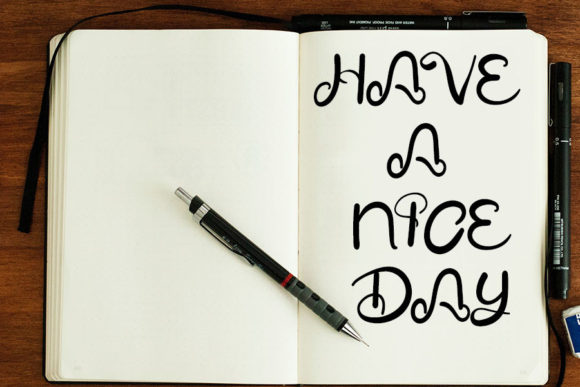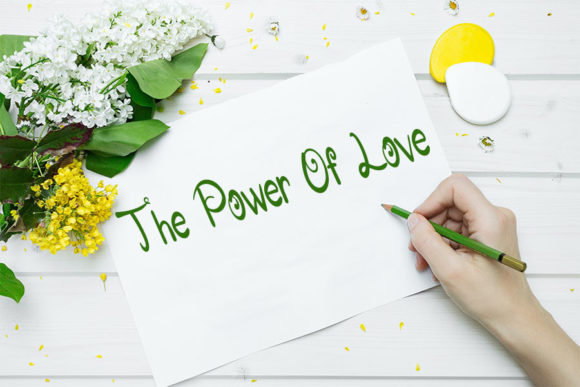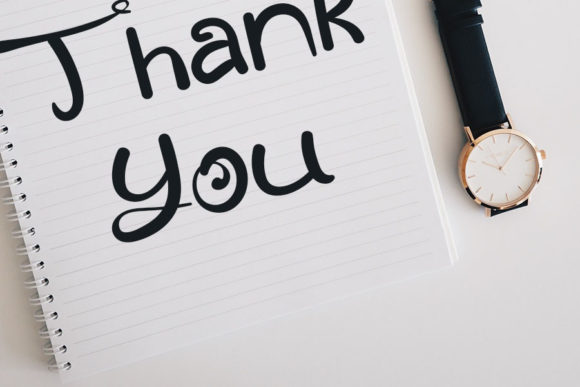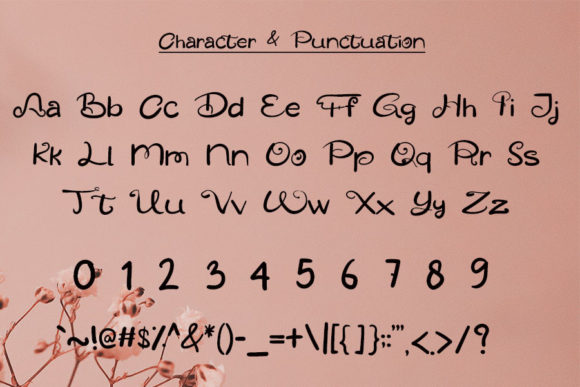
Introducing Good Allisya: The Ultimate Chic Script Font for Your Design Projects
Are you tired of using the same old fonts for your design projects? Look no further! Good Allisya is a stunning script font that is sure to elevate your designs to the next level. With its chic, whimsical, and refined aesthetic, Good Allisya emanates sophistication and elegance, making it perfect for a wide range of projects.
What Makes Good Allisya Special?
Good Allisya is not just another script font. Its stylish alternates and ligatures make it a standout in the world of typography. The font features a range of beautiful swashes and connections that add a touch of elegance to any text. Whether you’re designing a logo, creating a brand identity, or crafting a beautiful wedding invitation, Good Allisya is the perfect match.
Key Features of Good Allisya
- Chic and Whimsical Design: Good Allisya boasts a unique and stylish design that is sure to capture the attention of your audience.
- Refined and Elegant: The font’s refined aesthetic makes it perfect for high-end designs, such as luxury branding, fashion magazines, and wedding invitations.
- Stylish Alternates and Ligatures: Good Allisya features a range of stylish alternates and ligatures that add a touch of sophistication to any text.
- Highly Versatile: The font is perfect for a wide range of projects, including logos, branding, packaging, and more.
Why Choose Good Allisya?
With so many fonts available, why choose Good Allisya? Here are just a few reasons why designers and crafters love this font:
- Unique and Eye-Catching: Good Allisya is a one-of-a-kind font that is sure to make your designs stand out from the crowd.
- Elegant and Sophisticated: The font’s refined aesthetic makes it perfect for high-end designs that require a touch of luxury.
How to Use Good Allisya in Your Designs
Good Allisya is easy to use in a variety of design projects. Here are a few ideas to get you started:
- Logos and Branding: Use Good Allisya to create a unique and eye-catching logo that reflects your brand’s personality.
- Wedding Invitations: Add a touch of elegance to your wedding invitations with Good Allisya’s refined script.
- Fashion Magazines: Use Good Allisya to add a touch of luxury to your fashion magazine designs.
- Packaging: Good Allisya is perfect for packaging designs that require a touch of sophistication.
Tips and Tricks for Getting the Most Out of Good Allisya
Here are a few tips and tricks for getting the most out of Good Allisya:
- Experiment with Different Sizes: Good Allisya looks great in a variety of sizes, so don’t be afraid to experiment.
- Play with Ligatures: Good Allisya’s ligatures are a key feature of the font. Experiment with different combinations to add visual interest to your text.
- Use Alternates: Good Allisya’s alternates offer a range of stylistic options. Use them to add variety to your text.
Good Allisya is a truly exceptional script font that is sure to elevate your designs to the next level. With its chic, whimsical, and refined aesthetic, Good Allisya emanates sophistication and elegance, making it perfect for a wide range of projects. Whether you’re a designer, crafter, or DIY enthusiast, Good Allisya is a must-have font that is sure to inspire your creativity.